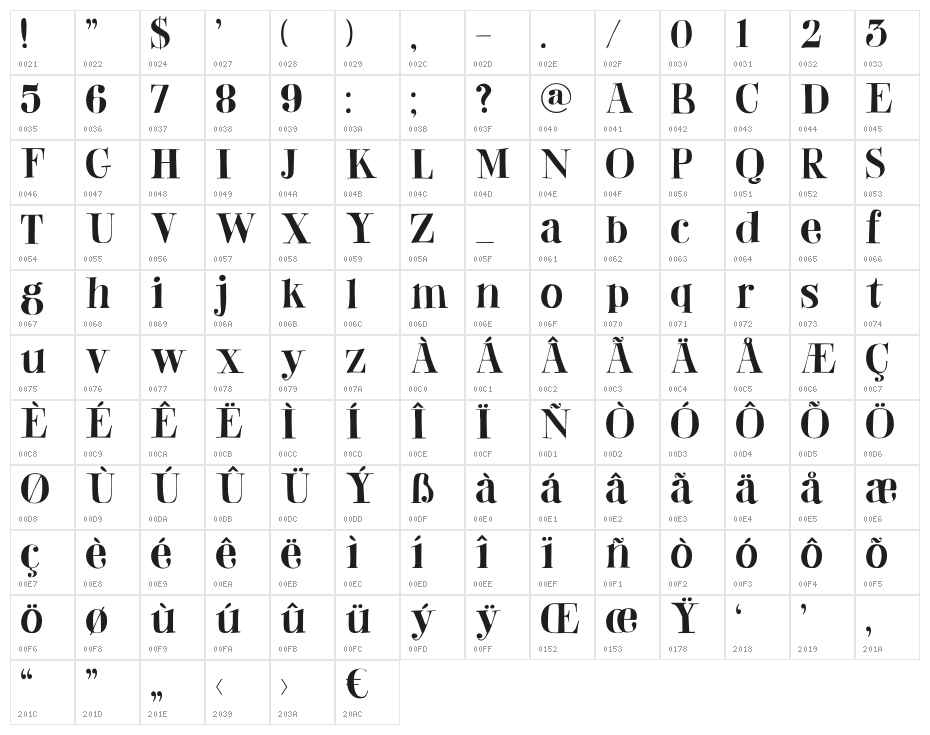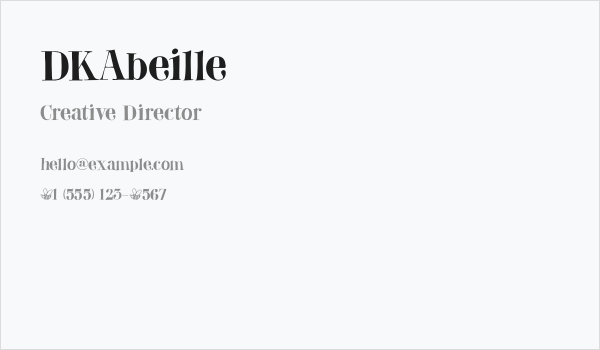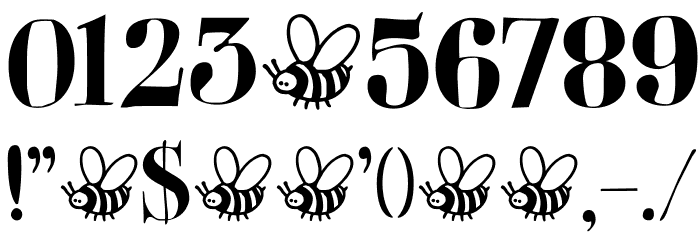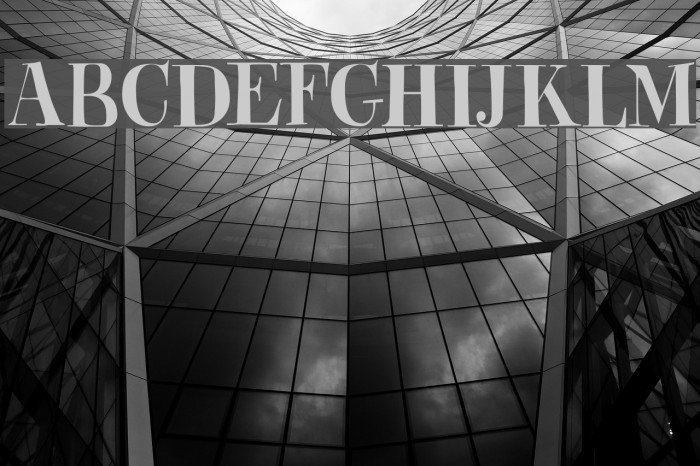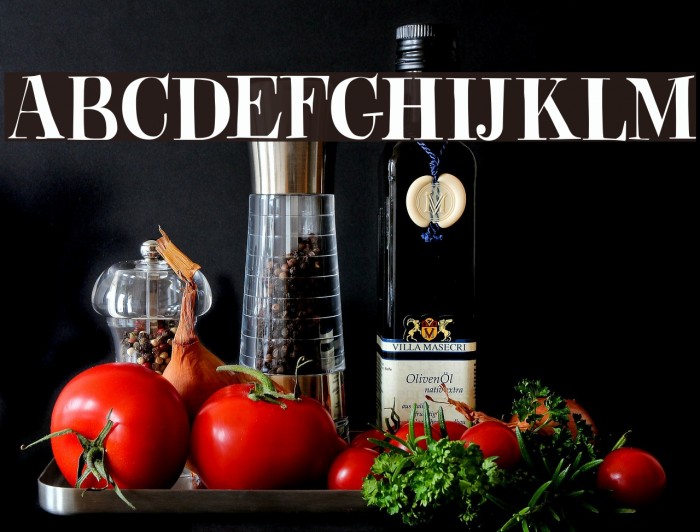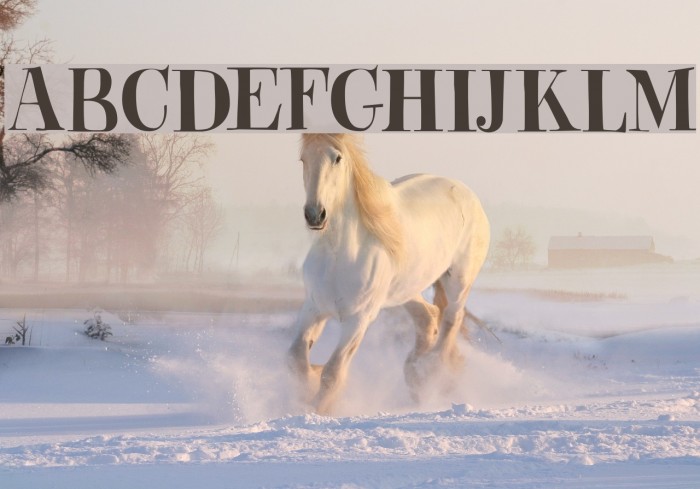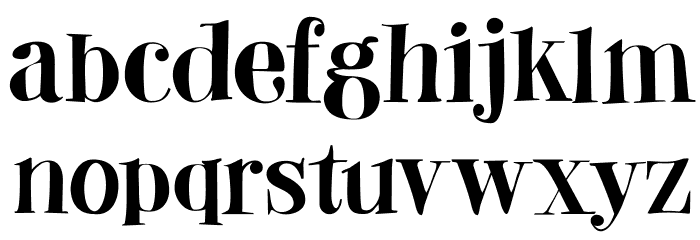
DKAbeille Font
DKAbeille Description
This font features a unique blend of modern and vintage styles, characterized by its bold, high-contrast strokes and distinctive serifs. The uppercase letters exhibit a strong presence with their thick vertical lines and sharp, angular serifs, while the lowercase letters maintain a playful yet sophisticated appearance. The numbers are equally bold, ensuring visibility and impact. Special characters, including whimsical bee illustrations, add a decorative and charming touch, making this font stand out for creative projects.